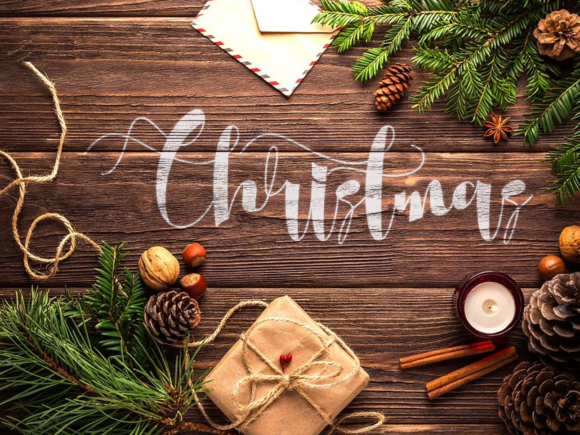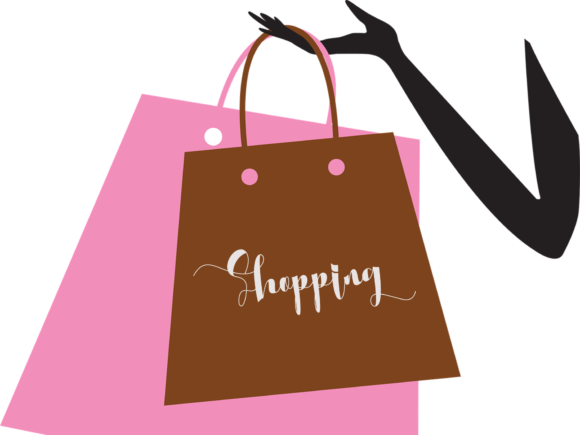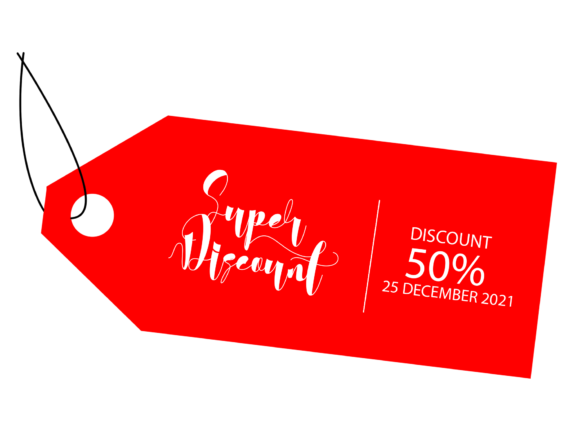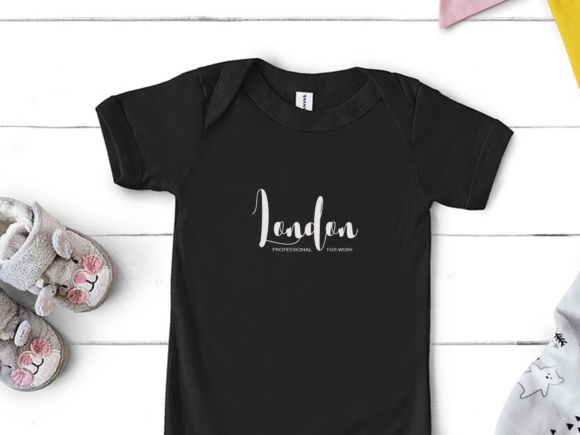
Discover the Charm of English Font: A Lovely Script Font for Creative Projects
Are you a designer or crafter looking for a unique and eye-catching font to elevate your creative projects? Look no further than the English font, a lovely script font that features charming, playful characters that seem to dance along the baseline. With its whimsical and elegant design, this font is sure to add a touch of personality to any project.
What Makes English Font So Special?
English font is a script font that stands out from the crowd with its distinctive and charming characters. Each letter is carefully crafted to create a sense of movement and fluidity, giving the font a playful and lively feel. The characters seem to dance along the baseline, creating a sense of energy and dynamism that is sure to capture the attention of your audience.
One of the key features that sets English font apart is its elegant and refined design. The font has a sophisticated and luxurious feel, making it perfect for projects that require a touch of glamour and sophistication. Whether you’re working on a branding project, a wedding invitation, or a packaging design, English font is sure to add a level of elegance and refinement.
How to Use English Font in Your Creative Projects
English font is a versatile font that can be used in a wide range of creative projects. Here are a few ideas to get you started:
• Branding and Logo Design: Use English font to create a unique and memorable logo that reflects your brand’s personality and style.
• Wedding Invitations: Add a touch of elegance and sophistication to your wedding invitations with English font.
• Packaging Design: Use English font to create eye-catching packaging that stands out on store shelves.
• Social Media Graphics: Add a touch of personality to your social media graphics with English font.
Tips for Working with English Font
Here are a few tips to keep in mind when working with English font:
• Use it sparingly: English font is a statement font, so use it sparingly to avoid overwhelming your design.
• Pair it with a simple font: Pair English font with a simple font to create contrast and visual interest.
• Experiment with colors: English font looks great in a range of colors, so don’t be afraid to experiment and find the perfect hue for your project.
Why English Font is a Must-Have for Designers and Crafters
English font is a must-have for designers and crafters for several reasons:
• Unique and eye-catching: English font is a unique and eye-catching font that is sure to make your projects stand out.
• Versatile: English font can be used in a wide range of creative projects, from branding and logo design to wedding invitations and packaging design.
• Elegant and refined: English font has an elegant and refined design that adds a touch of sophistication and luxury to any project.
In conclusion, English font is a lovely script font that is sure to add a touch of personality and elegance to any creative project. With its charming, playful characters and elegant design, this font is a must-have for designers and crafters looking to elevate their work and make it stand out. So why wait? Add English font to your collection today and discover the charm of this beautiful font for yourself!